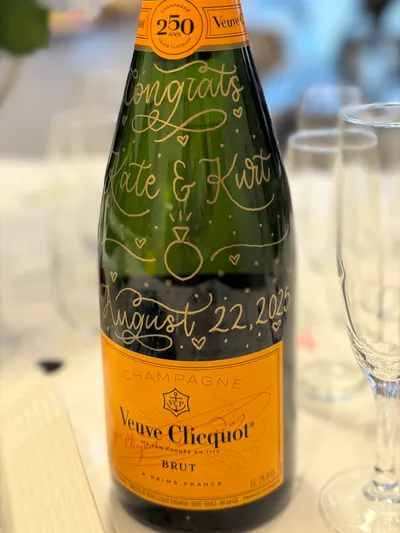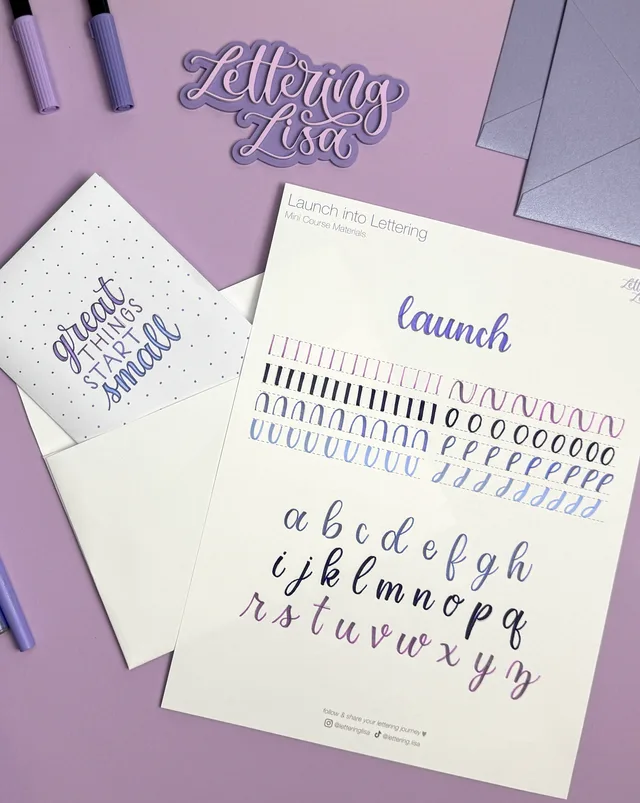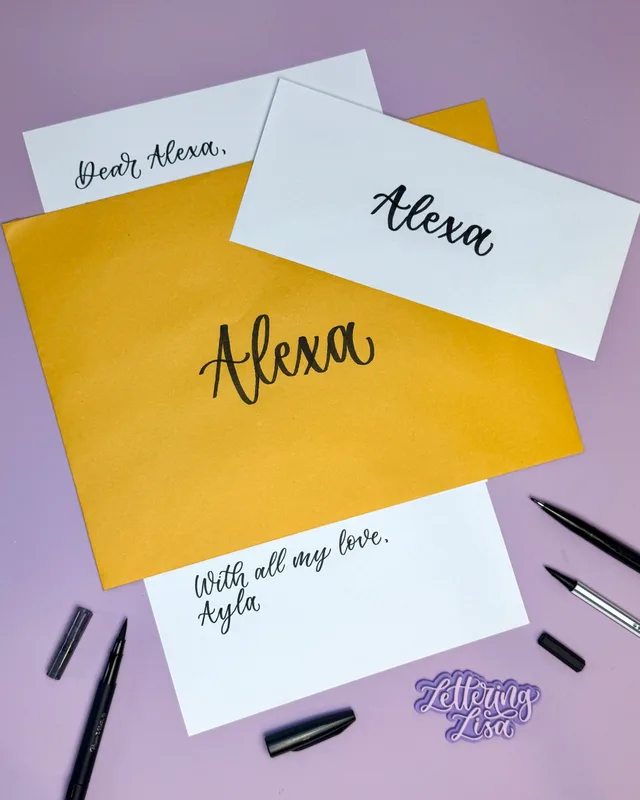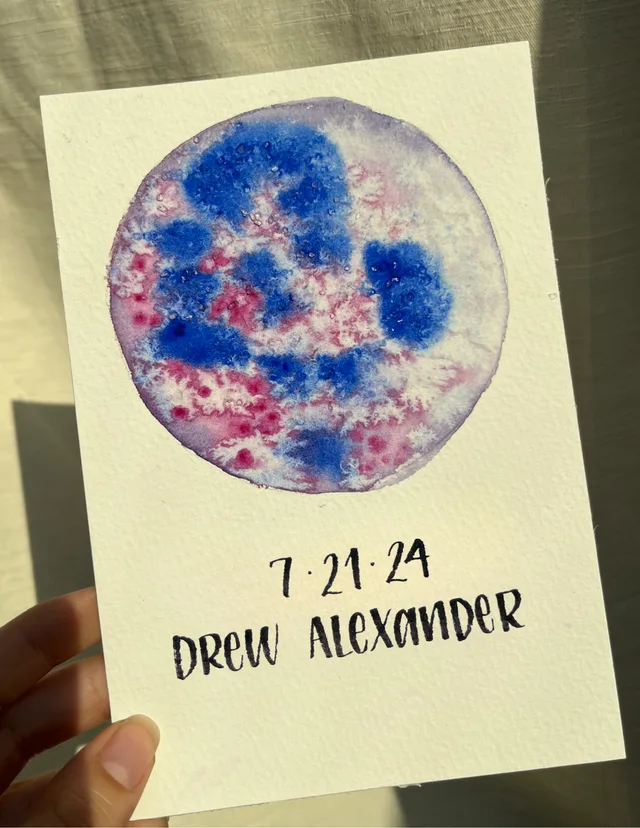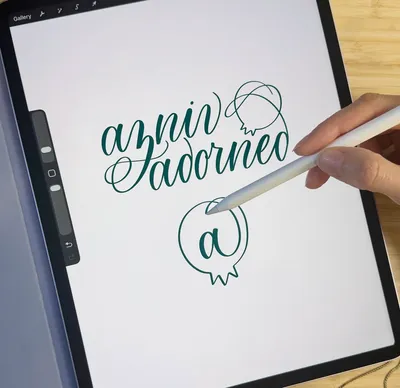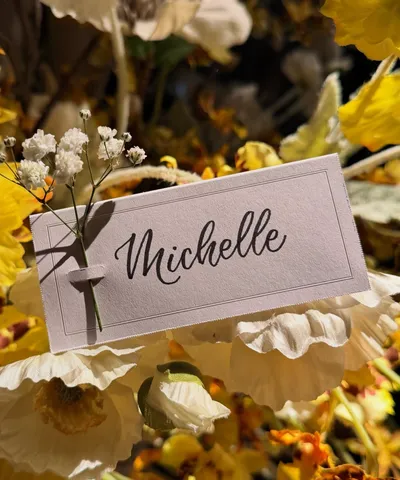
Custom lettering and modern calligraphy for celebrations, gifts, and brands.
Calligraphy tambourine escort card display for a wedding
Neon Salt Studio x Lettering Lisa
Commemorative Moon Phase
Catch a moment in time with a custom moon phase painting and lettering. The stunning watercolor art is created by the talented Marisa Gelling Stark of Neon Salt Studio.
Commemorative moon phase watercolor with brush lettering calligraphy
Launch into Lettering
From faux calligraphy to brush lettering, learn the basics with short pre-recorded lessons and make a keepsake card.
Launch into Lettering mini course materials
Hi, I'm Lisa
I'm a self-taught lettering artist specializing in modern calligraphy and partial to all things lavender. What started as a creative outlet and a way to unwind has grown into creating one-of-a-kind pieces for others.
I love how personal hand lettering is and the way it can elevate ordinary objects—from an envelope to a wine bottle. Gift giving is my love language, which makes creating custom pieces all the more special.